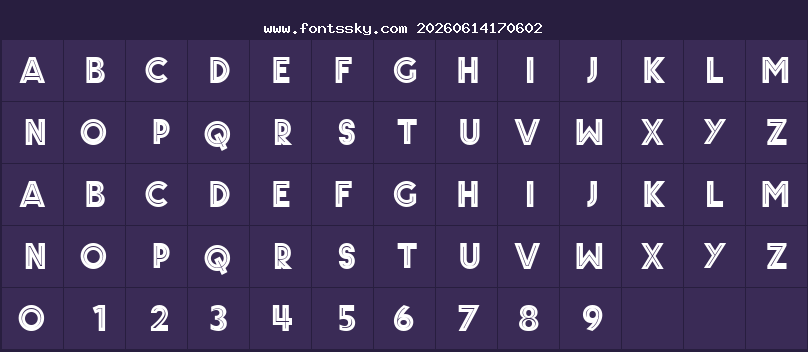
Empire Preview
• Font Name: Empire
• Full Font Name: Empire Bold
About Empire.ttf
Empire.ttf is a modern, elegant sans-serif font designed for ultimate readability and visual harmony. Perfect for branding, headlines, web design, and print materials.